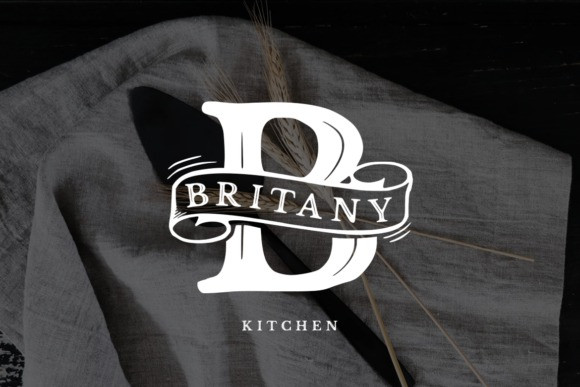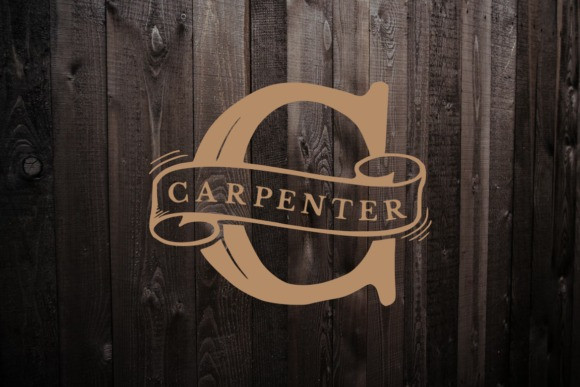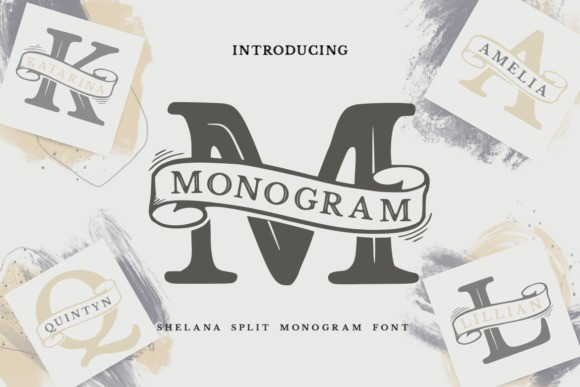
Shelana Monogram Split Font
Shelana Monogram Split Font is a vintage styled and unique serif font. The font is suitable for any branding project like logo, t-shirt printing, sporting design, and many more. It will look outstanding in a wide range of contexts.